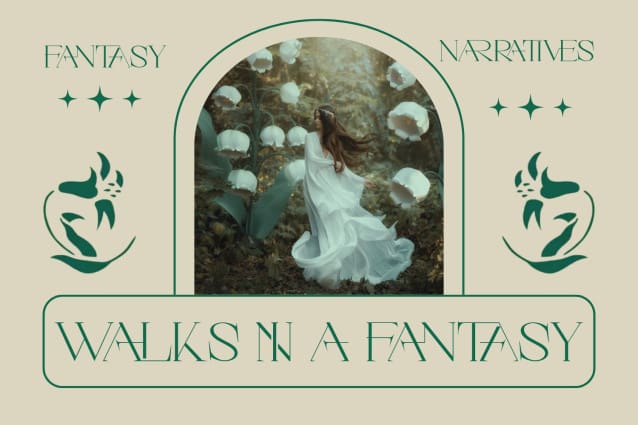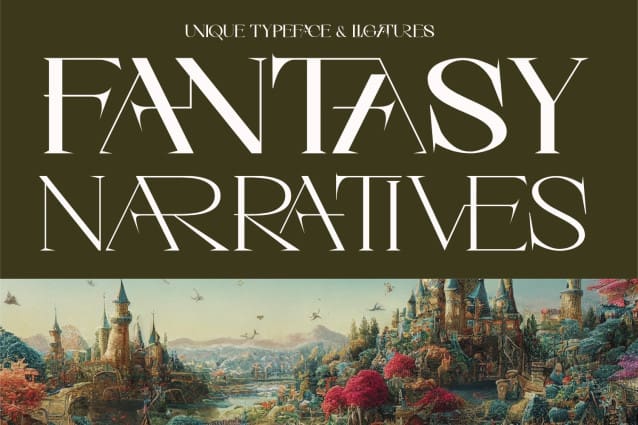
Fantasy Narratives Font
Fantasy Narratives Font – Classic Adventure Fantasy Pirate Game Font, a serif logo font with unique ligatures! With distinctive ligatures, it adds finesse to every character, making it ideal for branding and logo creation. This font is equipped with many beautiful and unique ligature options. This type of font is very suitable for your various needs such as branding projects, logos, social media posts, advertisements, labels, product packaging, photography, wedding designs, watermarks, invitation product designs, stationery, and any project, made at a high price.
Fantasy Narratives was built with OpenType features and includes 100 ligatures, alternate, numbers, punctuation, and it also supports other languages.
AC AD AL AN AR AS AT AU AV BE CA CE CH CO CT DE DI EA EC ED EE EL EM EN EP ER ES ET FE FO FR GE HA HE HI HO IE IC IL IN IO IR IS IT JU KE LA LE LI LL LO LY MA ME MI NC ND NE NG NO NT NS OC OF OM ON OO OP OR OT OU OW PA PR RA RD RE RI RO RS RT SE SH SI SO SS ST TA TE TH TI TO TR TT UM UN UR VE WI WO